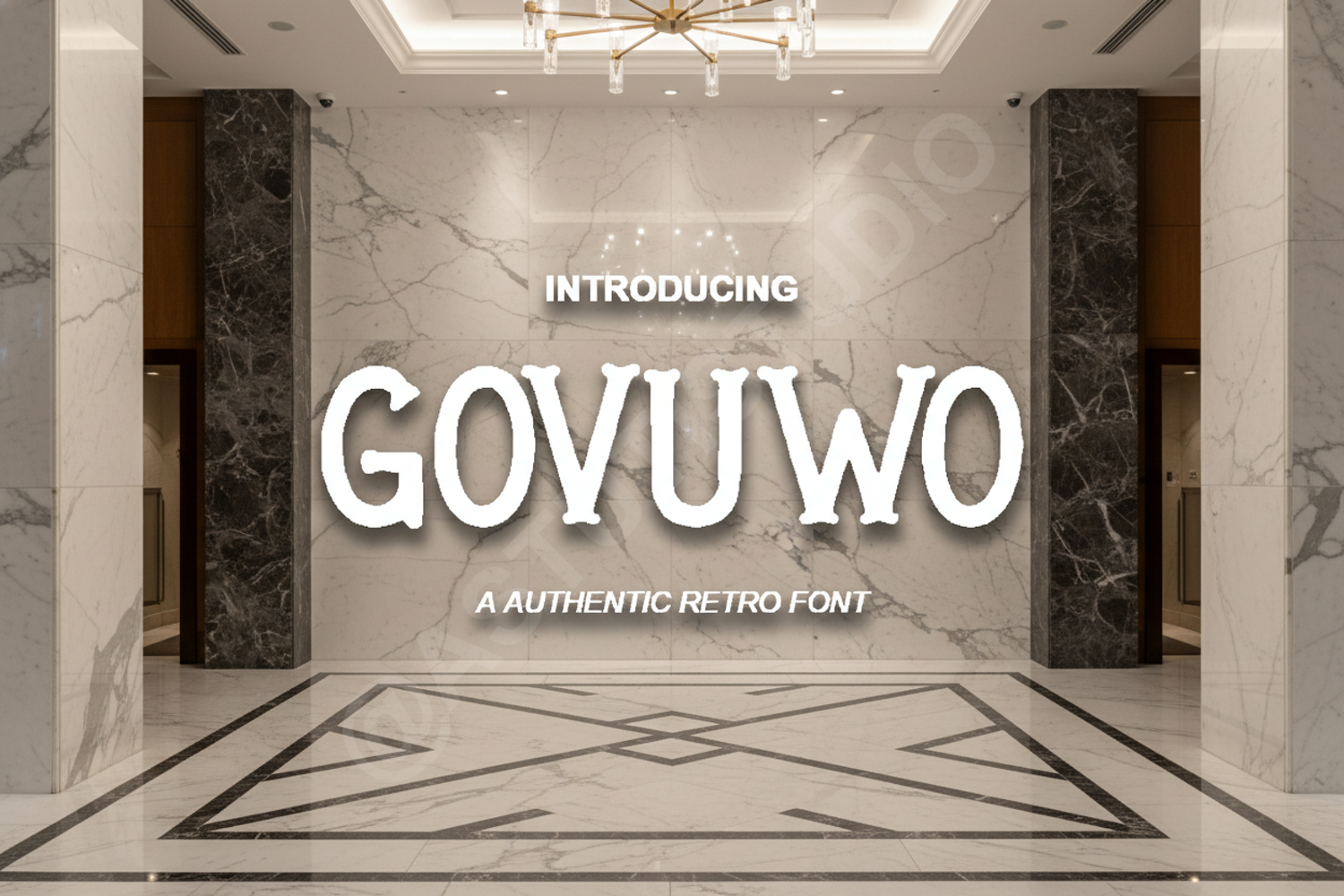
Govuwo - Elegant Modern Display Serif
Govuwo
Govuwo is a premium display serif font that masterfully blends contemporary aesthetics with timeless elegance. Designed for creators who demand sophistication, Govuwo features high-contrast strokes and refined geometric shapes that make every character stand out. Whether you are working on a high-end fashion brand or a minimalist editorial layout, this font provides the professional touch your project deserves.
- High-end Branding and Identity: Create memorable logos and brand marks.
- Luxury Packaging: Elevate product presentation with sophisticated typography.
- Editorial Design: Perfect for magazine headings, titles, and pull quotes.
- Wedding Invitations: Add a touch of modern class to stationery and event materials.
- Social Media Graphics: Capture attention with bold, stylish text overlays.